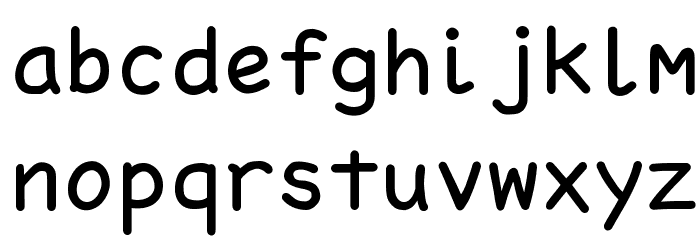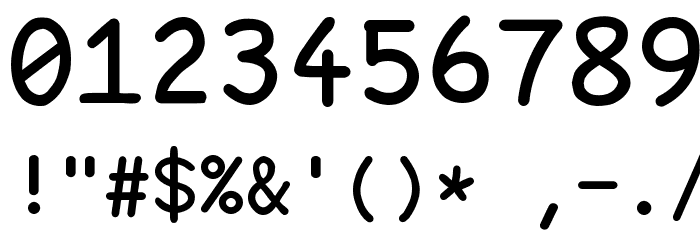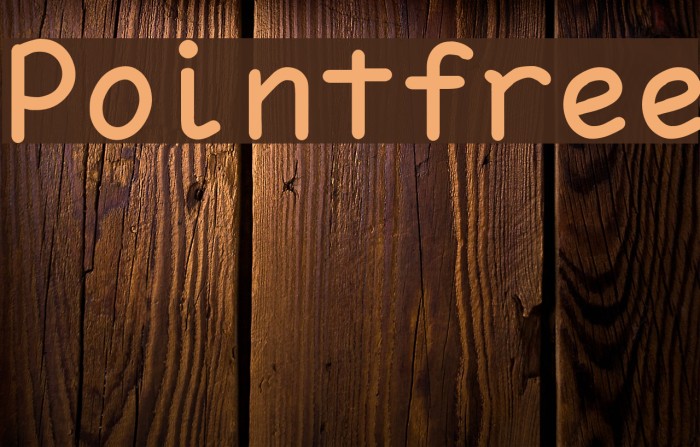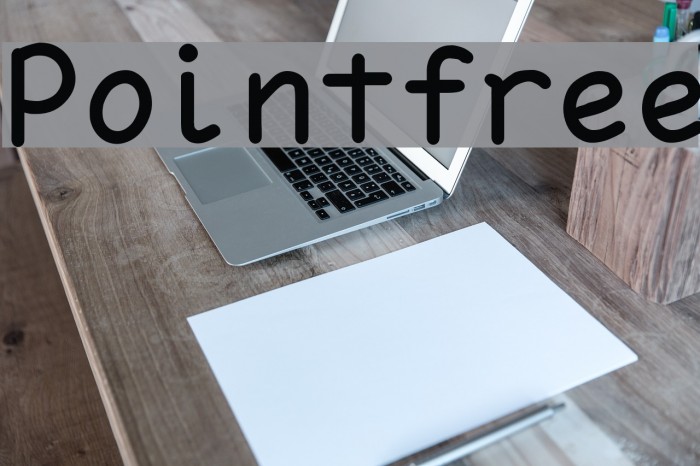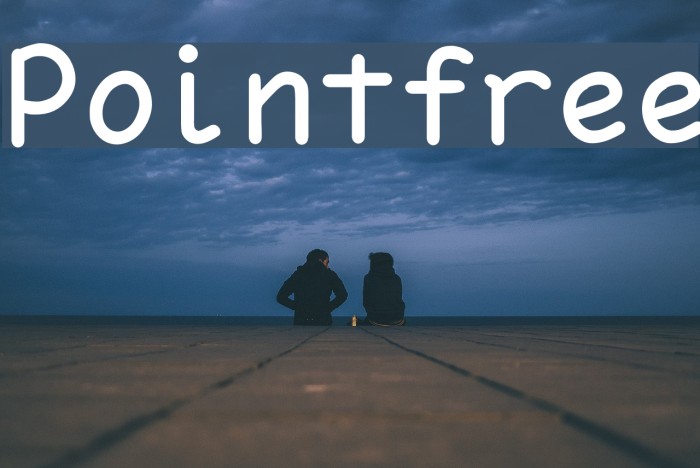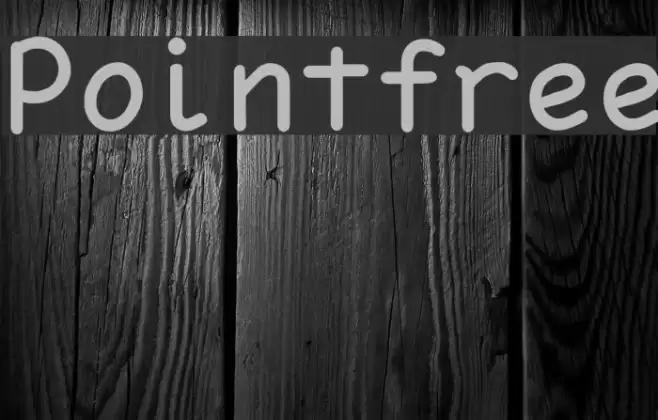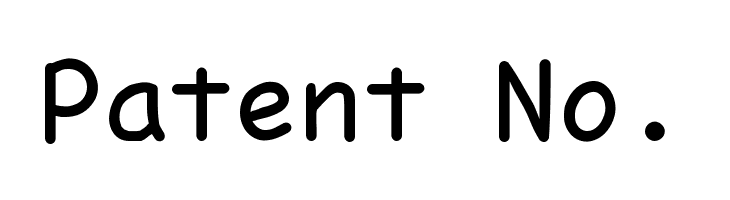
Pointfree Font
This font features a playful and casual style with rounded edges and a hand-drawn appearance. The characters are evenly spaced, providing a clean and approachable look. The uppercase letters maintain a consistent height, while the lowercase letters have a slightly varied baseline, adding to the informal charm. The numerals are clear and legible, matching the overall aesthetic. Special characters are well-integrated, maintaining the font's cohesive style. This font is versatile, suitable for projects that require a friendly and informal touch.
A playful, hand-drawn font with rounded edges and a casual style.
- Proposed Projects: Ideal for children's books, casual branding, greeting cards, and playful posters.
- Overall Style: Casual
- Use Case: Headlines, Logos, Informal Text